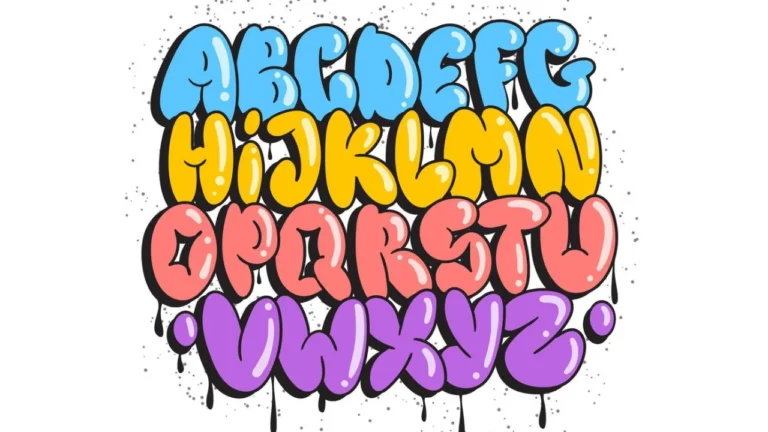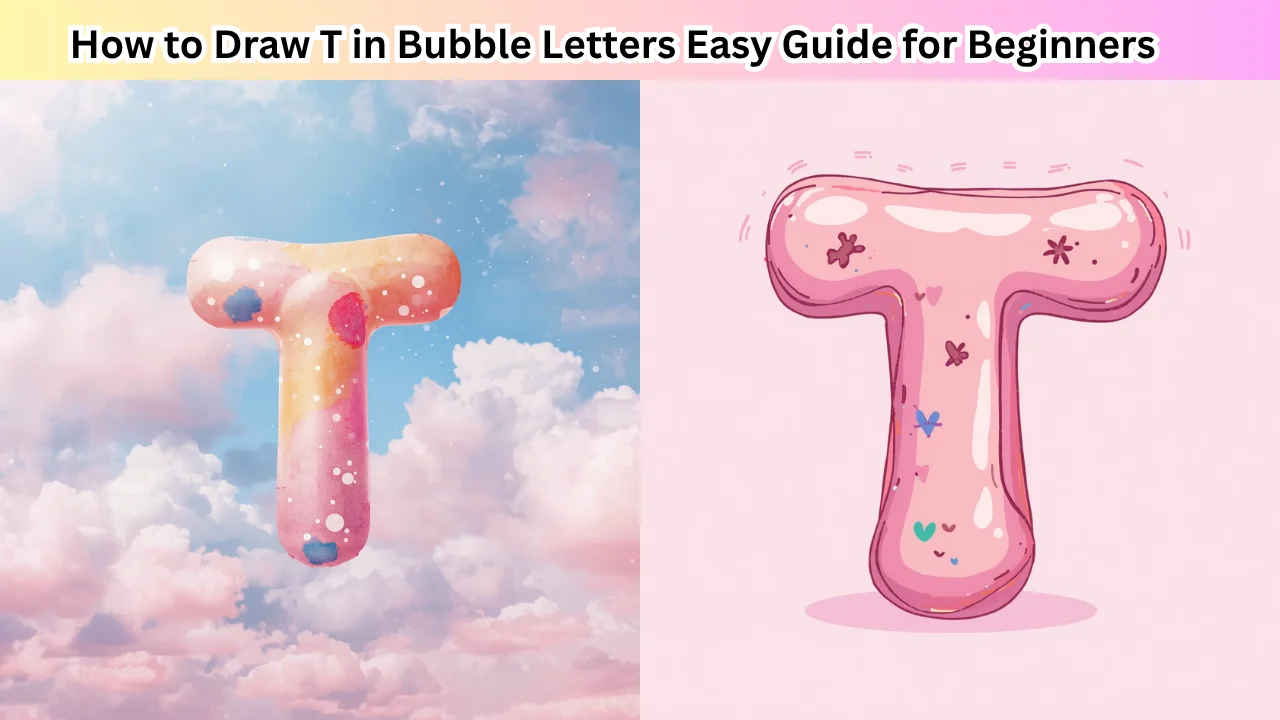
How to Draw T in Bubble Letters Easy Guide for Beginners
Bubble letters are a fun way to make your writing stand out. Learning how to draw a t in bubble letters can be the start of a creative journey. These letters look soft, round, and playful. They are perfect for posters, school projects, or personal artwork.
Bubble letters make your writing look bold and attractive. Many people enjoy learning to draw them because they are easy to design. The t in bubble can be shaped in many ways. You can make it tall, wide, or even add a 3D effect for extra style.
Why Choose T In Bubble Letters
Bubble letters grab attention. They are ideal for notes, cards, or banners. Writing a t in bubble instantly makes your text look artistic. The curves and softness of bubble letters give your writing a friendly vibe.
These letters are simple to start with. All you need is a pencil and some paper. You can experiment with the t in bubble by changing its size or adding decorations. Many artists enjoy doodling letters because it is relaxing and creative.
Tools Needed
To draw a t in bubble , you do not need fancy tools. A pencil, eraser, and markers are enough to start. Coloured pencils or gel pens can make your letters stand out.
You can also use a ruler if you want perfectly aligned letters. But freehand designs give a more natural look. Experimenting with your t in bubble will help you find your unique style.
Step-by-Step Guide
Start with a simple sketch of a straight t in bubble . Draw thick lines around it to form the bubble shape. Once you are happy, outline it with a darker pen or marker.
Next, erase the inner pencil lines carefully. You can then add extra details like shadows or highlights. Making a t in bubble look 3D adds depth and excitement.
Different Styles
The t in bubble can have many styles. You can make it rounded, square, or stretched. Some artists add patterns like stripes or dots inside the letter.
Another style is graffiti-inspired. This gives a modern and edgy look. Playing with the style of your t in bubble keeps your art fresh and fun.
Adding Colour
Colouring your t in bubble makes it more vibrant. You can use bright colours or pastel shades depending on the mood. Layering colours creates a gradient effect that looks professional.
You can also add patterns like polka dots, stripes, or small icons. Colored bubble letters attract attention and make your text lively.
T in Bubble for School Projects
Students often use a t in bubble in school projects. It makes headings and titles stand out. Teachers also notice effort and creativity in bold, colourful letters.
Using bubble letters in presentations can make your work more appealing. A well-drawn t in bubble gives a fun and polished look to posters or charts.
T in Bubble for Crafts
Bubble letters are not only for paper. You can use a t in bubble on fabrics, mugs, or notebooks. Many people use markers, paint, or stickers to make their letters permanent.
Crafting with bubble letters is enjoyable and practical. You can personalize gifts with a t in bubble , making them unique and special.
Common Mistakes
Many beginners make mistakes while drawing a t in bubble . One common issue is uneven curves. Another is inconsistent thickness.
Practicing regularly helps fix these problems. Always start lightly with a pencil and then darken the final outline. Avoid rushing, and your t in bubble letters will look clean and smooth.
Fun Activities
Bubble letters can be part of games or challenges. You can create your name or favorite word using a t in bubble . Some people enjoy doodling different styles daily.
Another idea is combining bubble letters with small drawings or emojis. Your t in bubble can be part of creative storytelling or comic art.
StyleDescriptionIdeal Use
Rounded Bubble TSoft curves, friendly lookPosters, cards
Square Bubble TSharp edges, modern styleSchool projects, signs
Graffiti TArtistic and edgyUrban art, street posters
3D TShadowed, layered for depthHighlighted headings
Patterned TInside decorations like stripes or dotsCreative notebooks, crafts
Tips for Mastering
Practice makes perfect. Start with simple shapes and gradually try more advanced designs. Using a pencil first allows corrections easily.
Try to make your t in bubble consistent in size when writing a word. Add color and shadow carefully to enhance the visual effect.
Learning different styles of the t in bubble will improve your creativity. Soon, you can draw whole words or sentences in bubble letters with ease.
Final Thoughts
Mastering a t in bubble letters is simple and fun. With practice, anyone can make their text bold and attractive. Bubble letters are perfect for both personal projects and schoolwork. Remember, the key is experimenting with shapes, colours, and patterns. Each t in bubble can be unique, reflecting your style. Start practicing today and see your art transform!